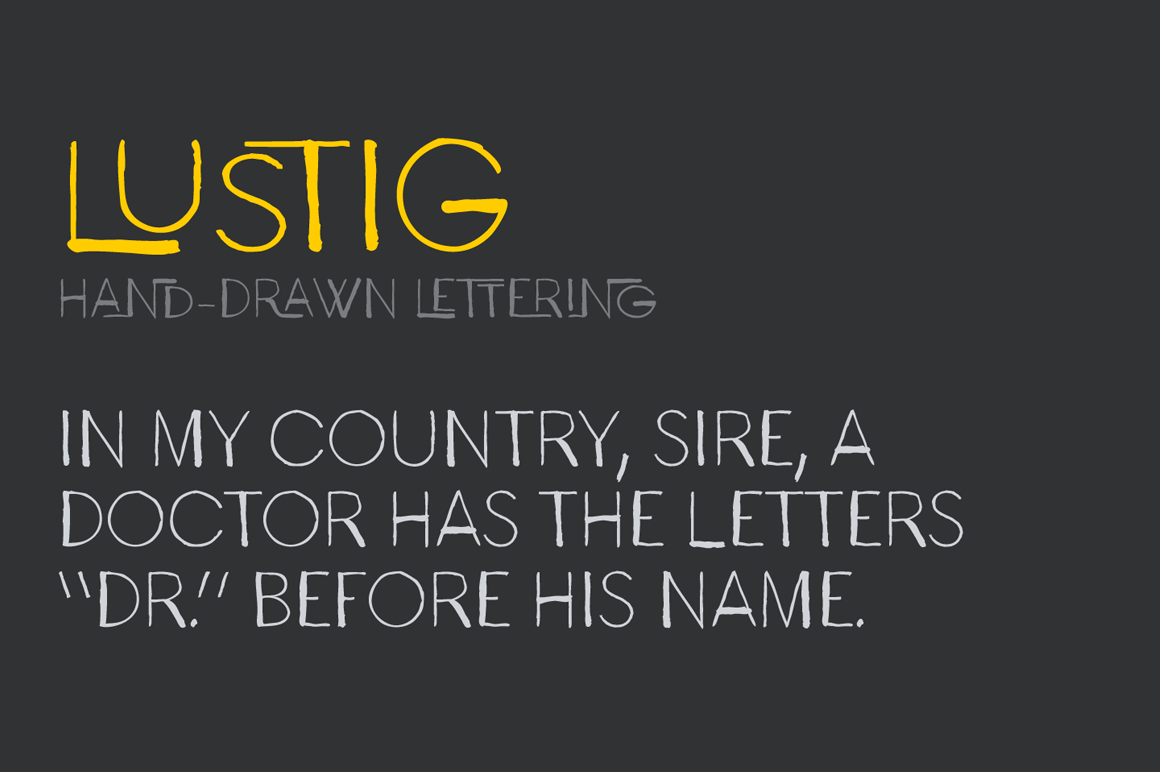
Lustig Font
In german lustig means funny. Furthermore Mr. Lustig is a character in one of Karel Čapek's miraculous fairy tales. In addition it's also a lively hand-lettered font equipped with playful interlocking ligatures. Have fun!